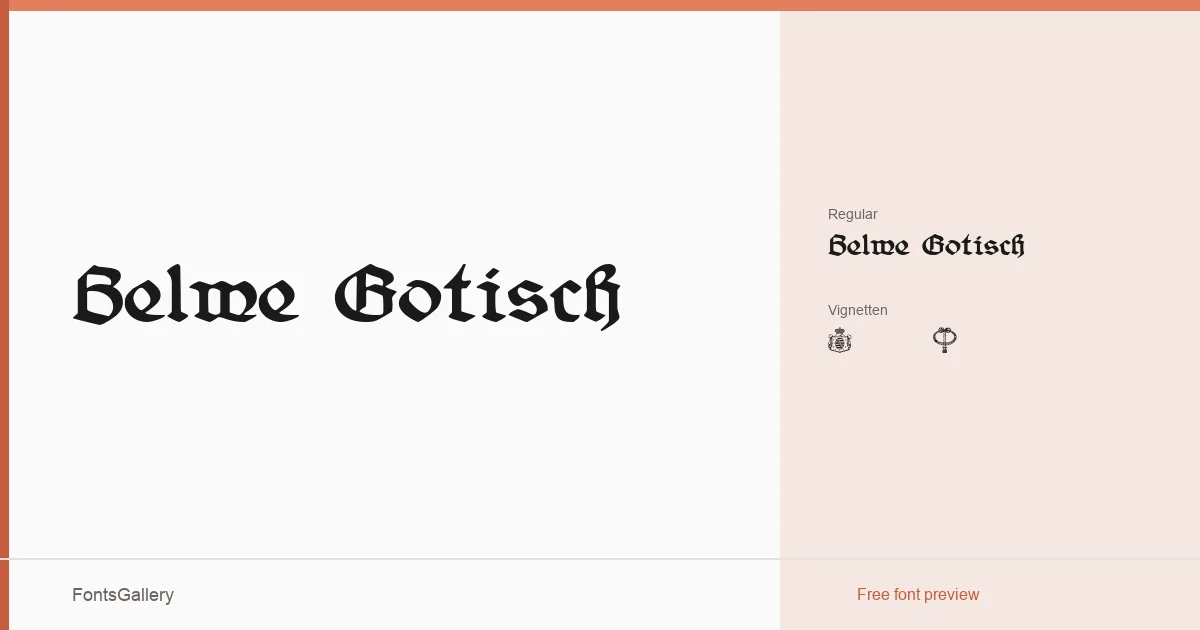
About Belwe Gotisch Font
Belwe Gotisch is a striking blackletter typeface published by Typographer Mediengestaltung that channels the timeless authority of classic Gothic script. With its bold, commanding presence and vintage character, it stands as a powerful typographic choice for projects that demand visual impact and historical gravitas. The font seamlessly bridges traditional craftsmanship with a raw, grunge-edged energy that feels equally at home in modern design contexts.
True to the blackletter tradition, Belwe Gotisch features the dramatic thick-and-thin stroke contrasts, angular letterforms, and ornate detailing that define the classic Gothic style. Its bold weight lends an assertive, grunge-inflected edge while retaining the vintage elegance associated with historical blackletter scripts. The result is a typeface that feels both authentically classic and powerfully expressive.
Belwe Gotisch excels in high-impact applications such as logos, posters, branding identities, T-shirt designs, and certificates where a bold, commanding aesthetic is essential. Its vintage and grunge qualities make it especially effective for projects in music, fashion, heritage branding, and editorial design. For a compelling typographic contrast, consider pairing it with the clean neutrality of Helvetica or the distinctive character of Aresink.